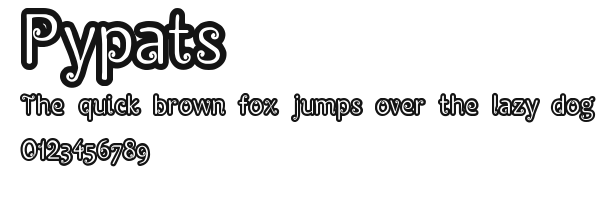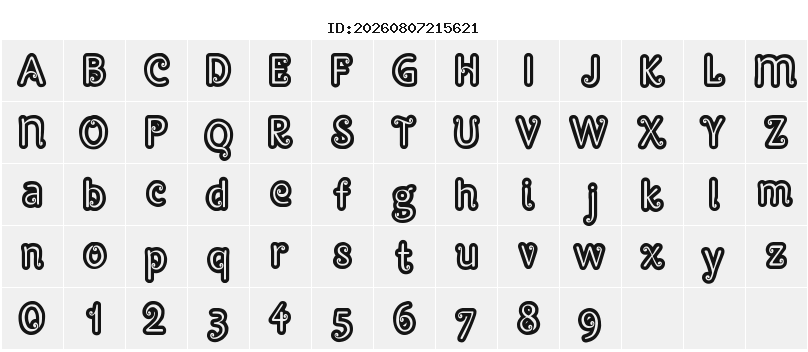
• Font Name: Pypats
• Full Font Name: Pypats
About Pypats.ttf
Pypats.ttf is a modern, elegant sans-serif font designed for ultimate readability and visual harmony. Perfect for branding, headlines, web design, and print materials.